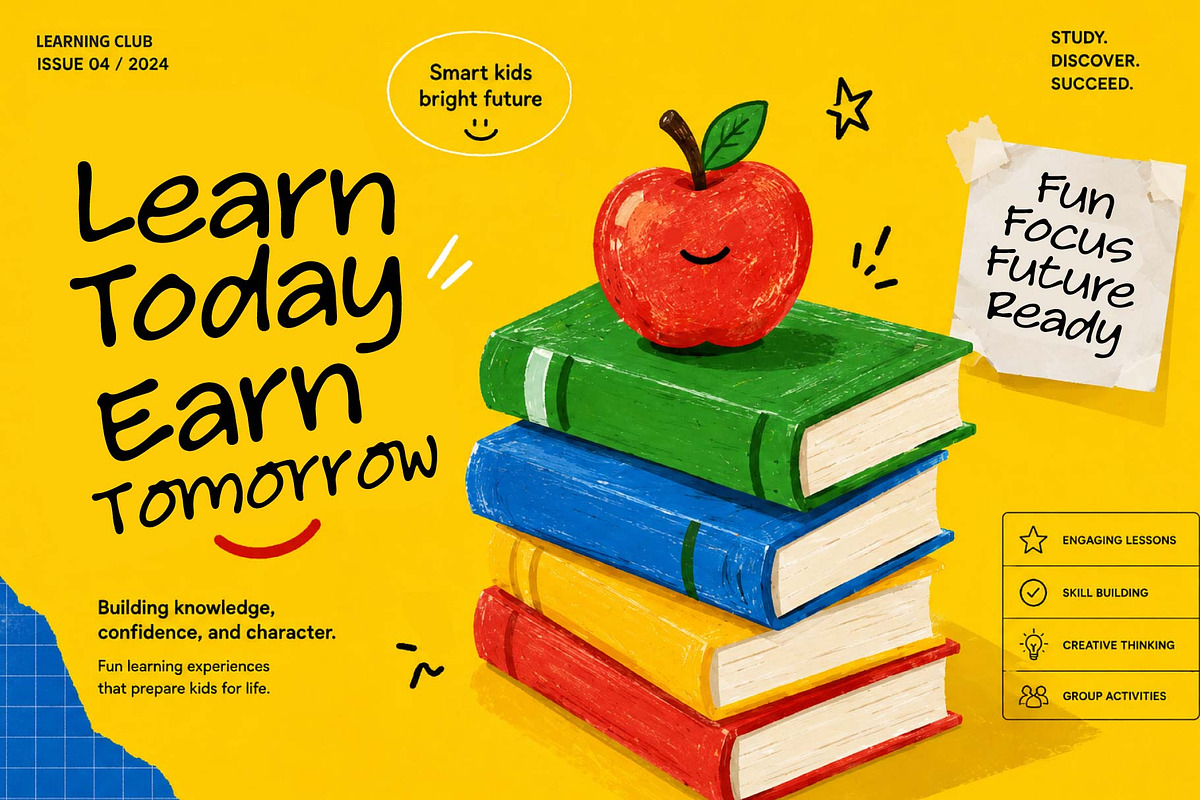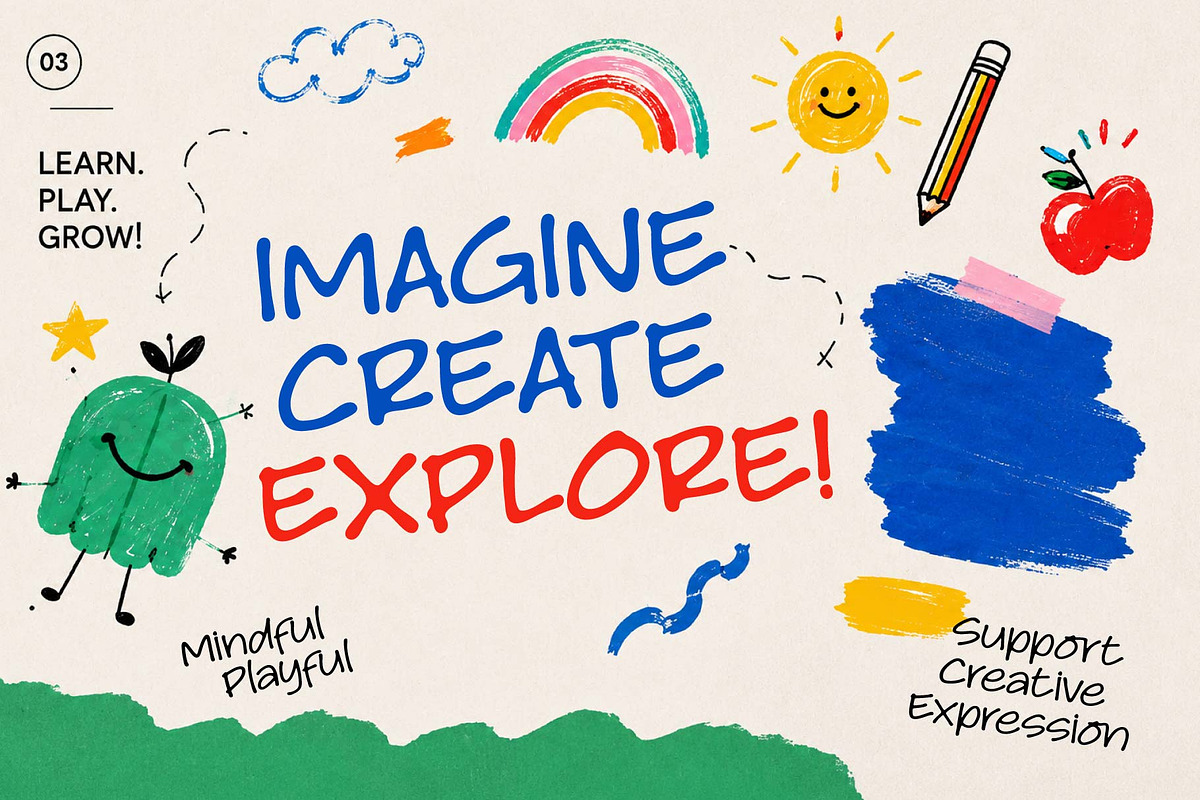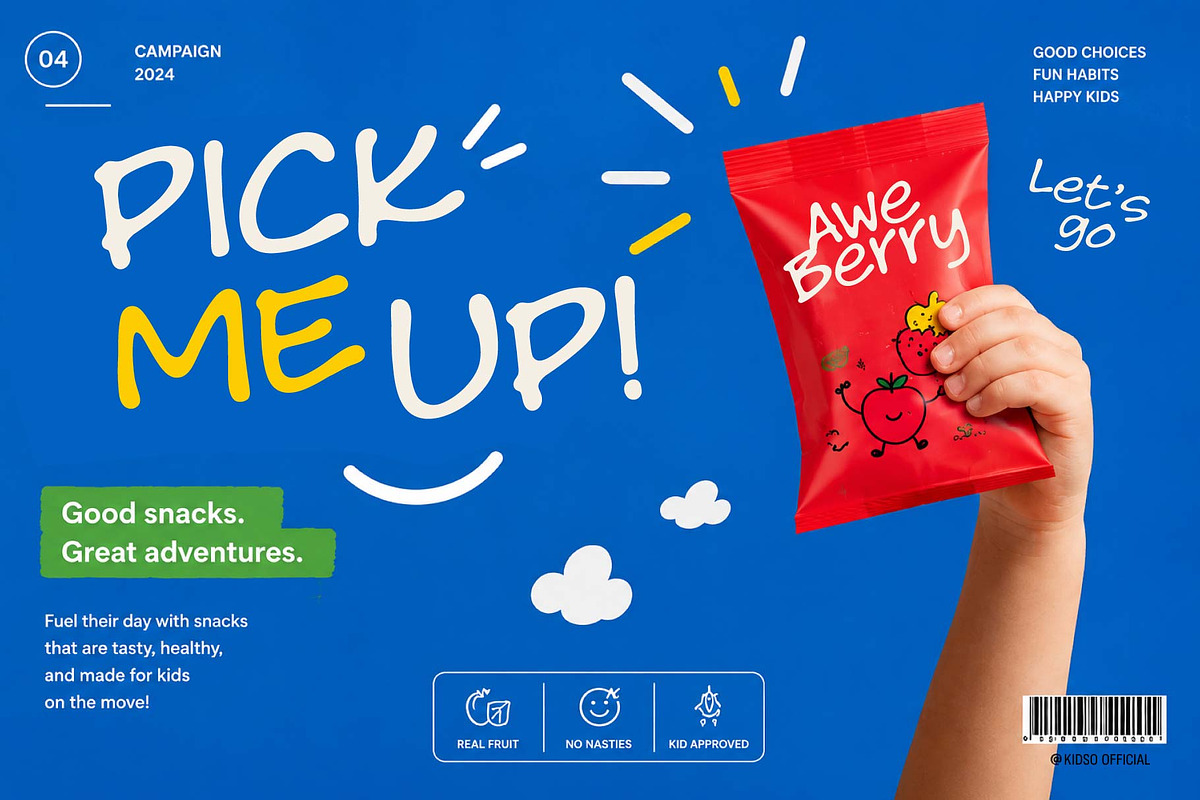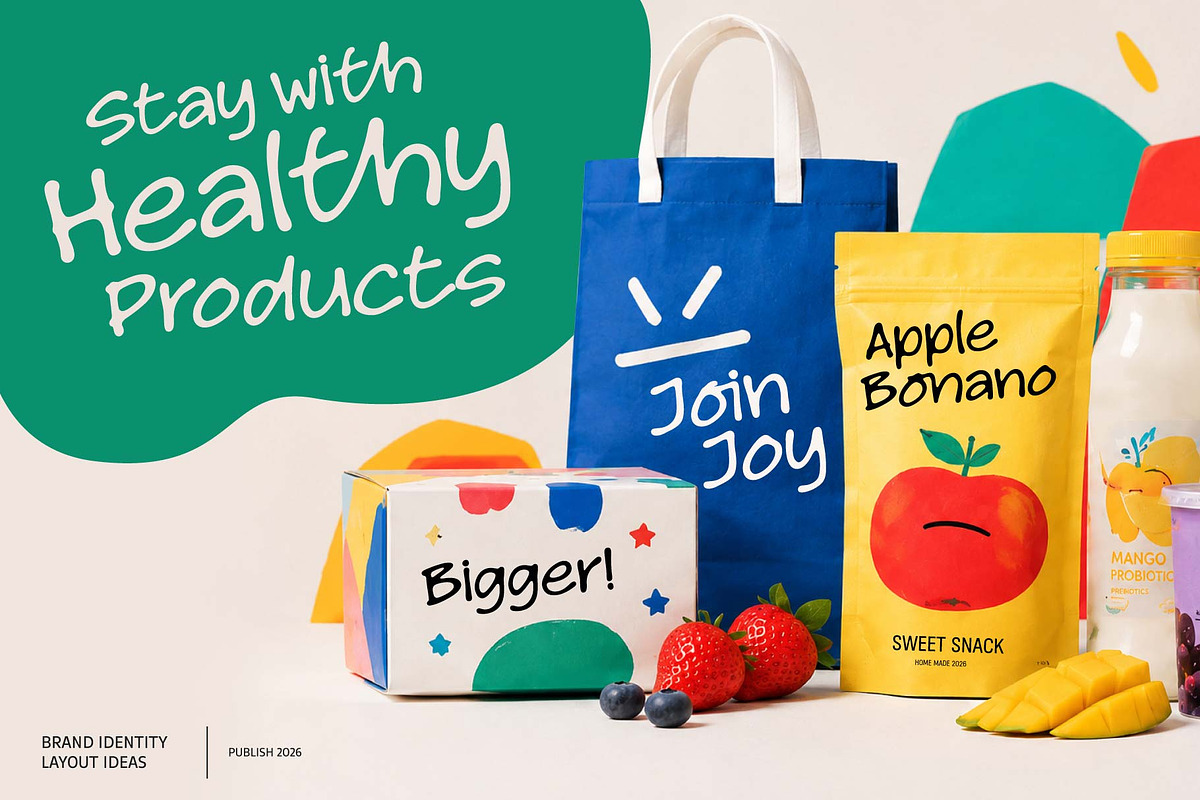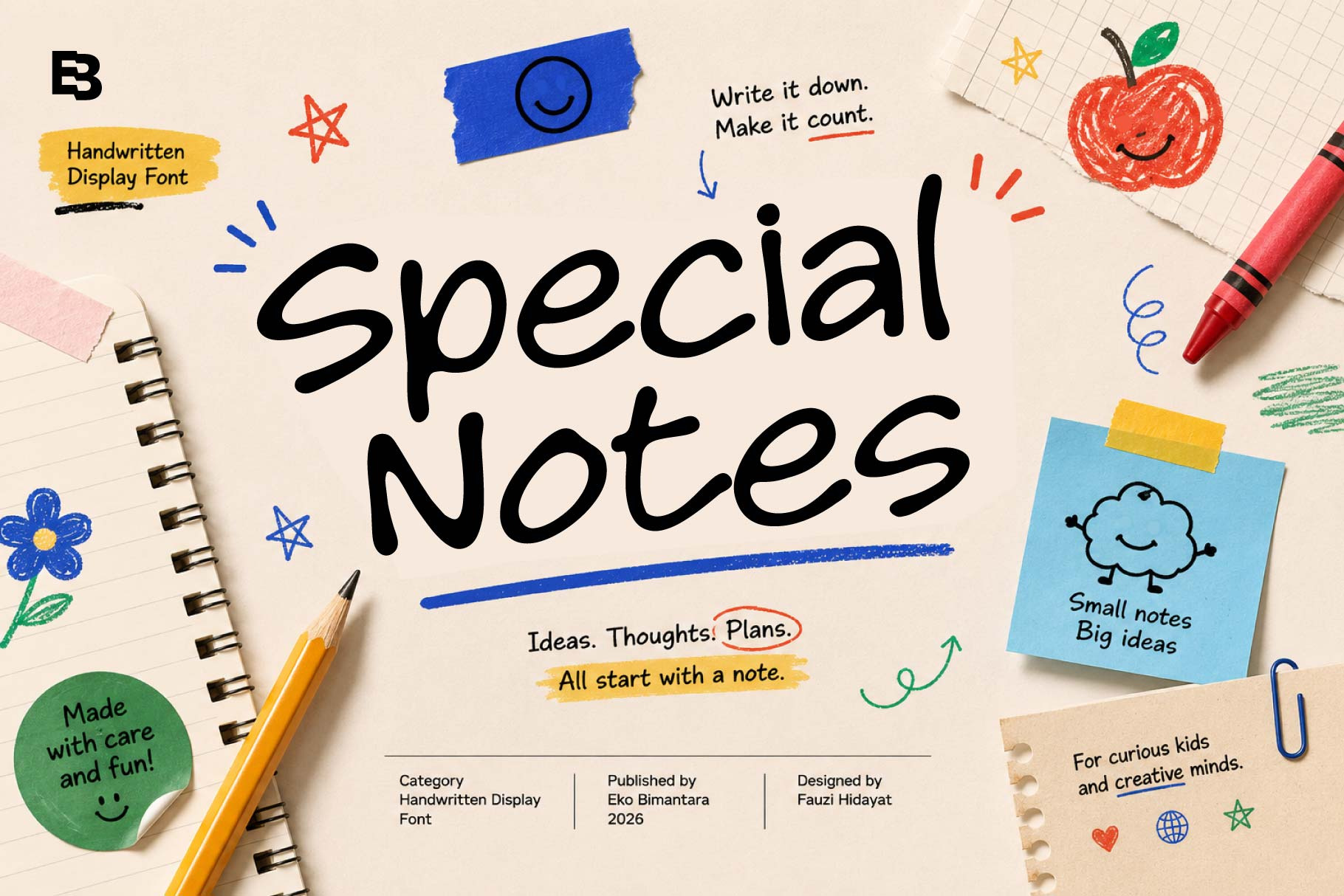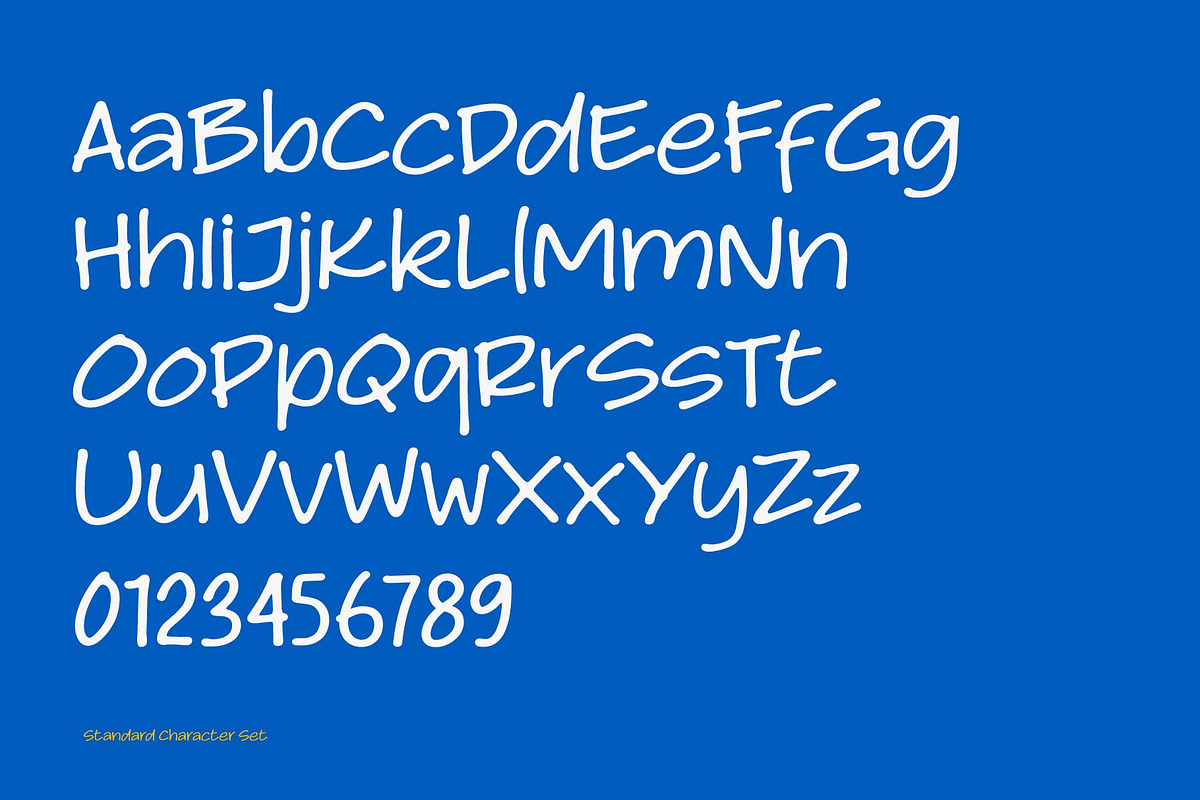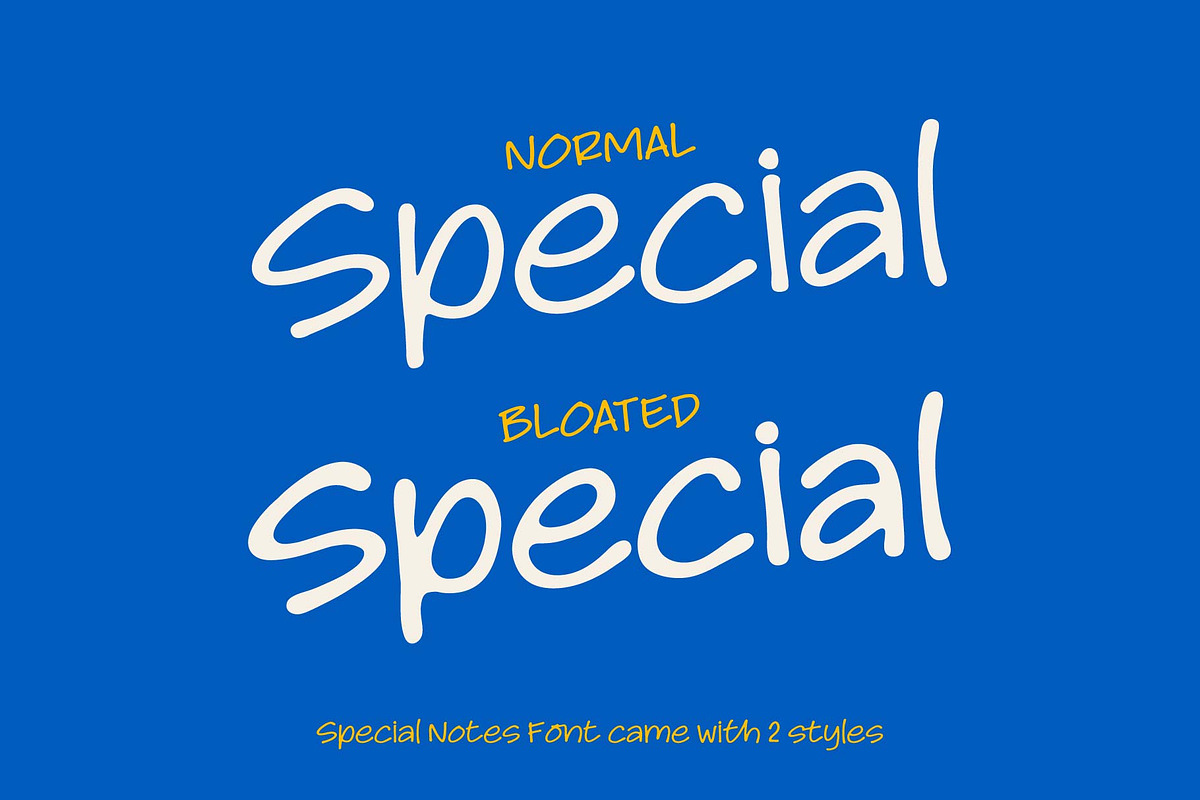
Special Notes; Handwritten Font
Special Notes is a cheerful handwritten display font designed to capture the creativity, curiosity, and playful spirit of childhood learning. With its smooth rounded strokes, friendly letterforms, and natural hand-drawn appearance, this typeface brings an approachable and energetic personality to every design. Perfect for educational materials, children’s books, classroom resources, school branding, activity sheets, packaging, posters, and creative projects, Special Notes creates a warm and engaging visual experience that feels both authentic and uplifting. Its clean readability and joyful character make it an ideal choice for designs that aim to inspire imagination, encourage learning, and communicate with a fun, positive voice.